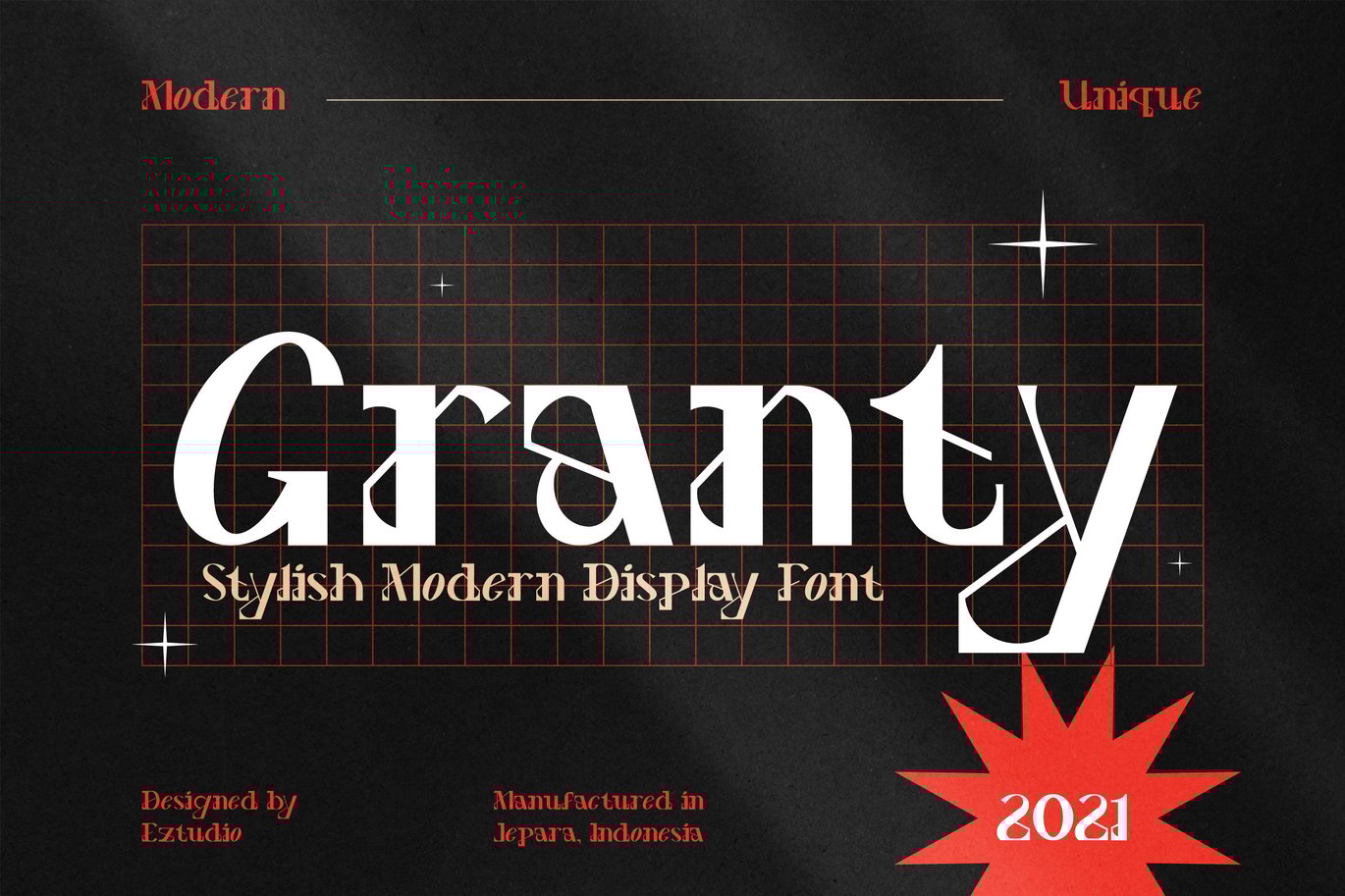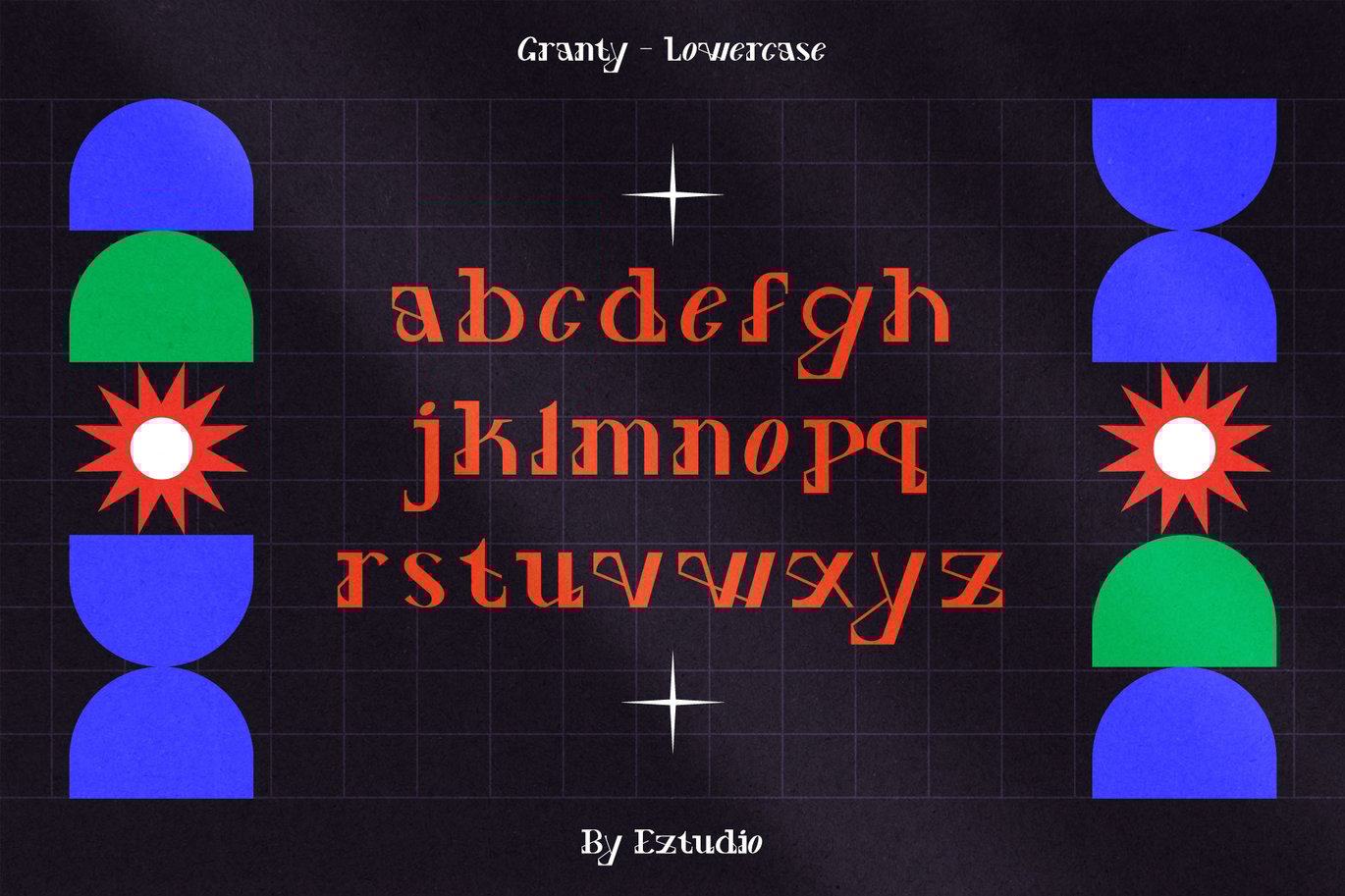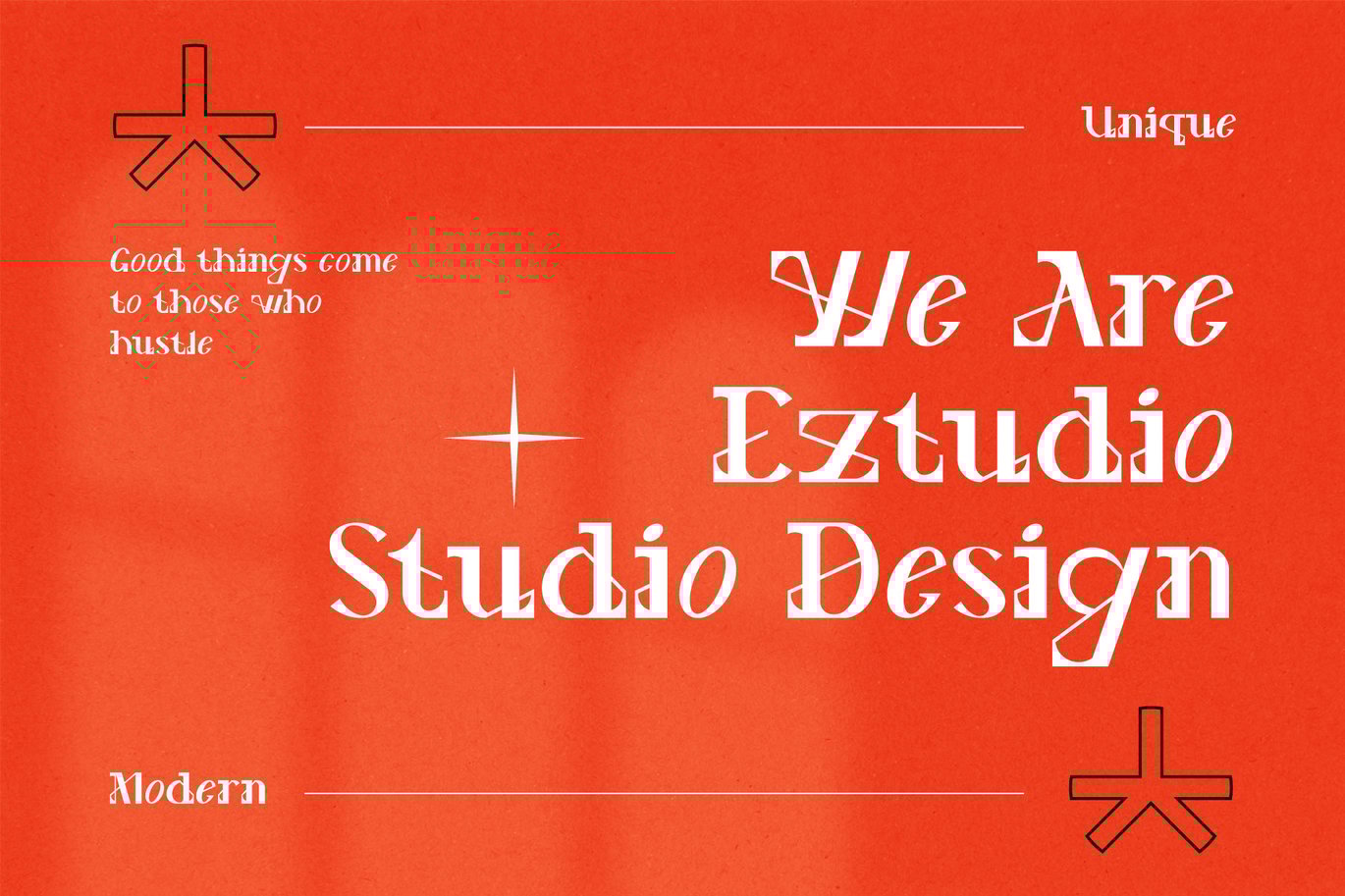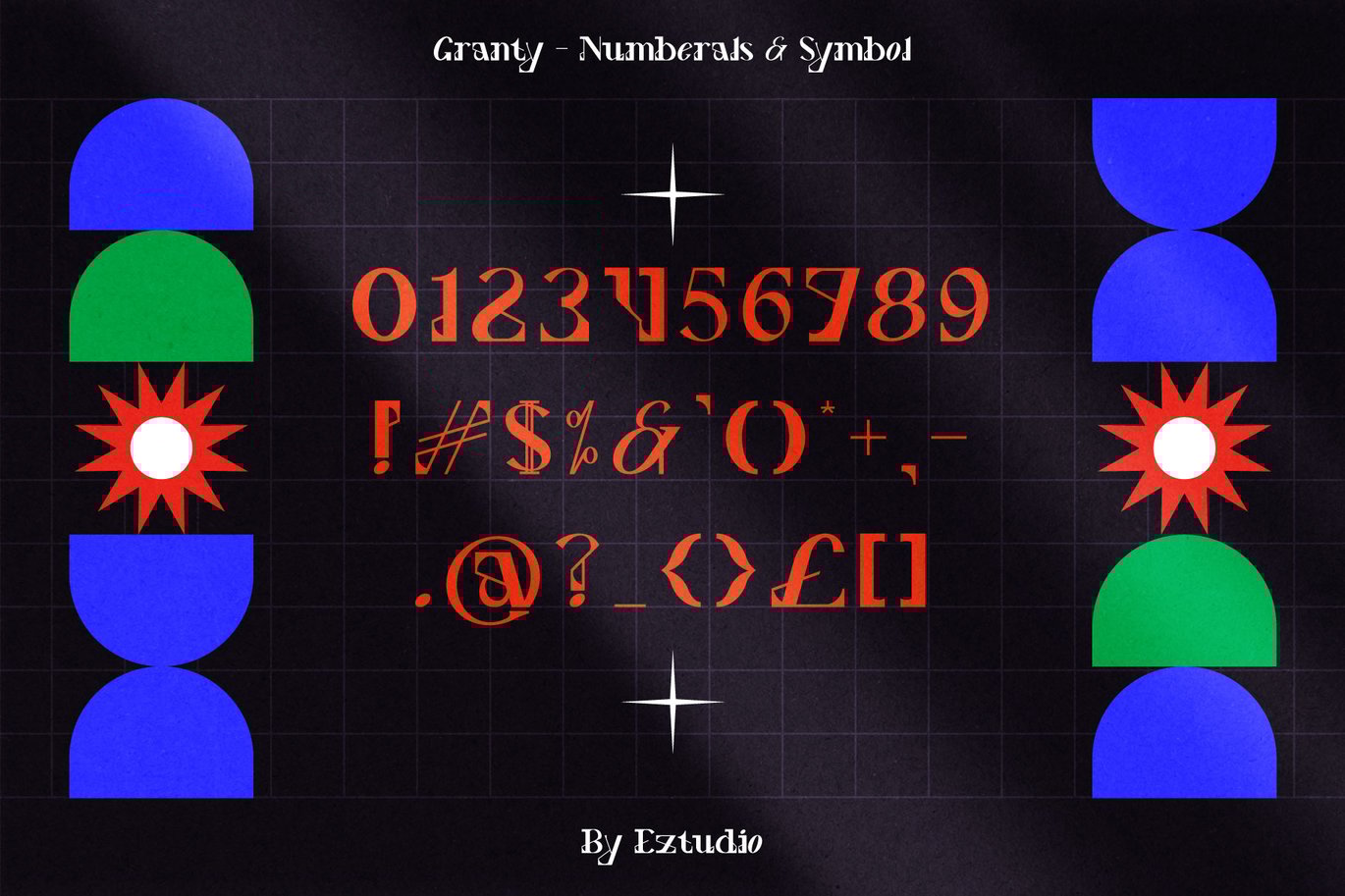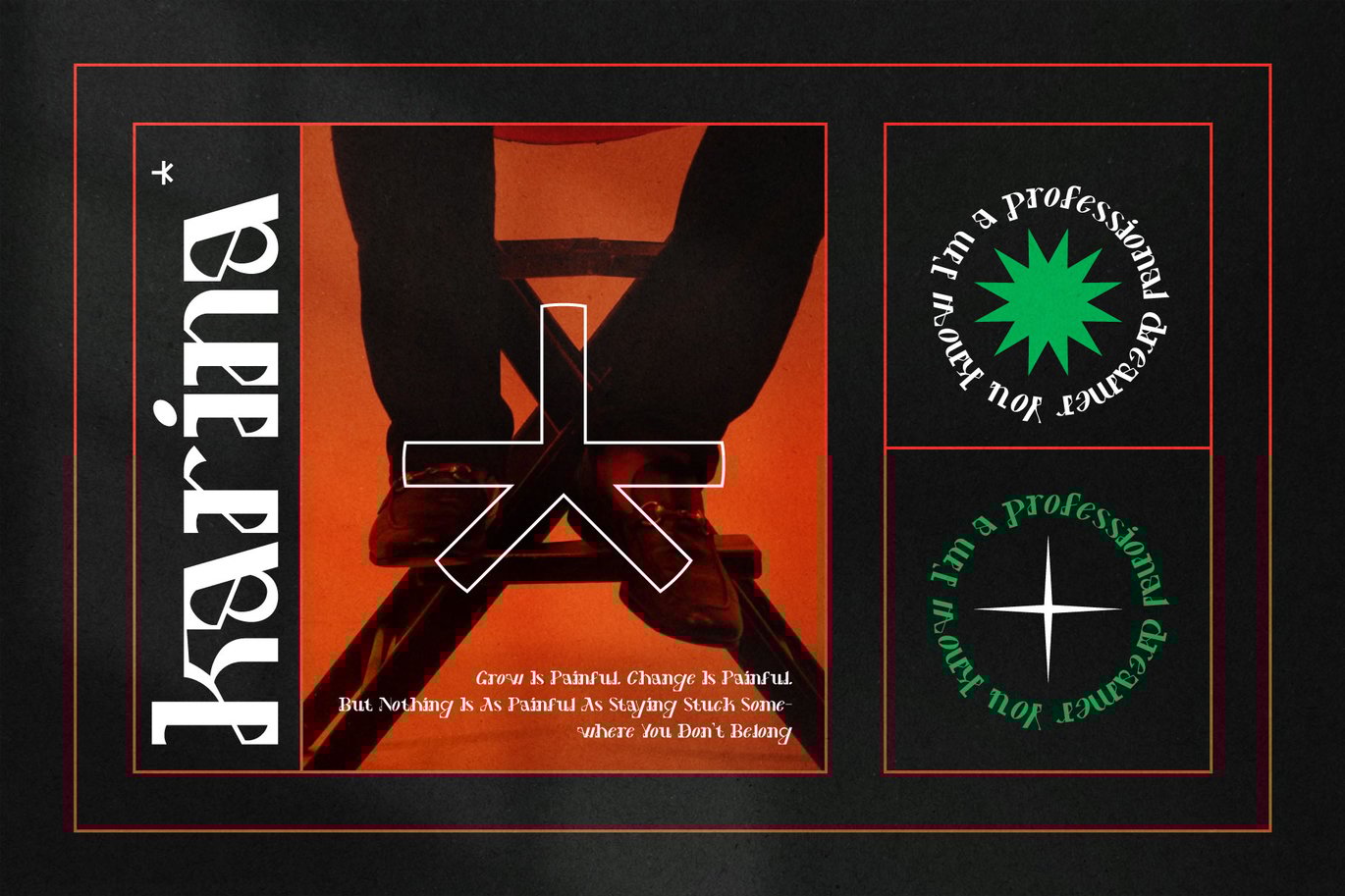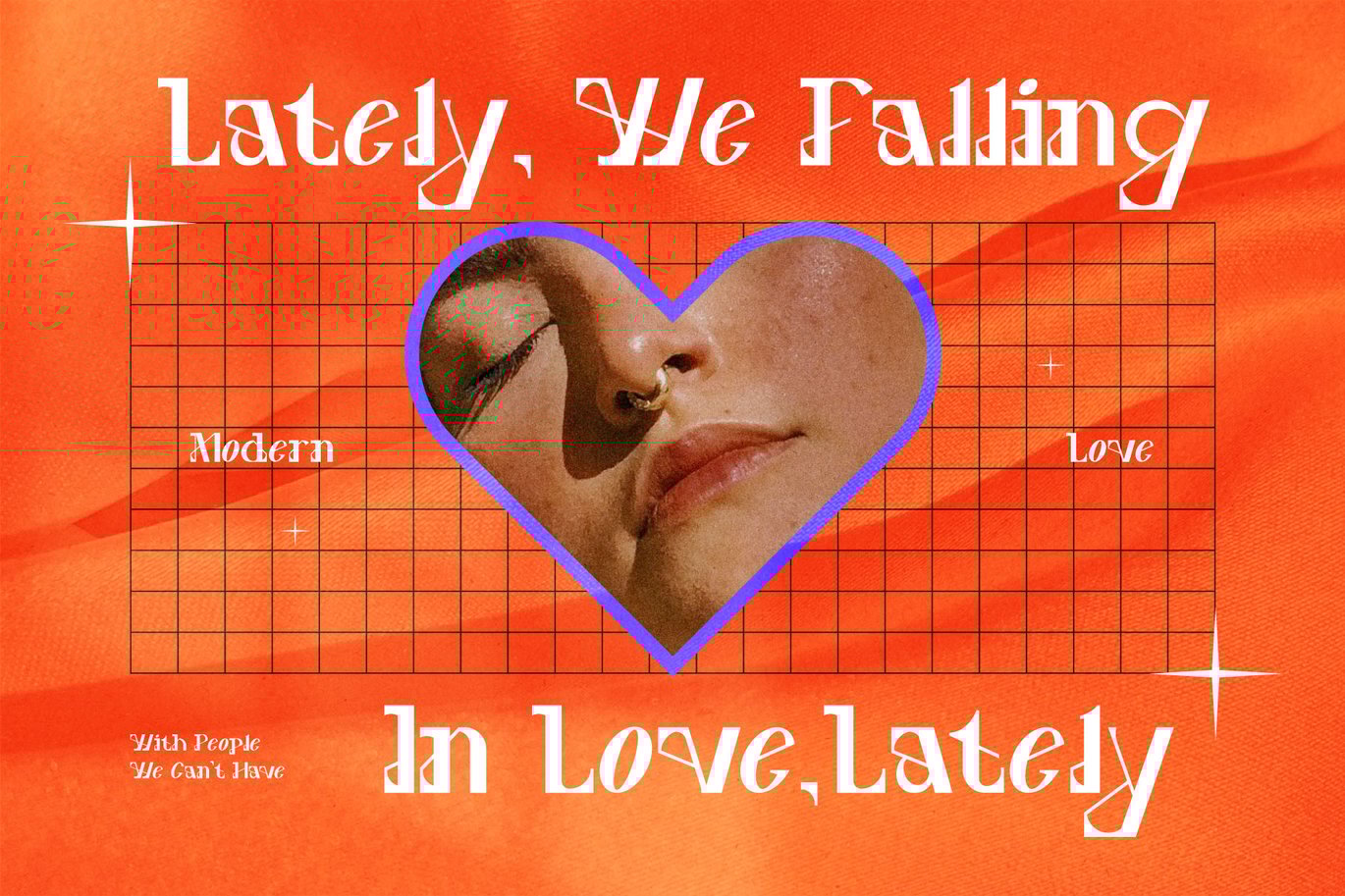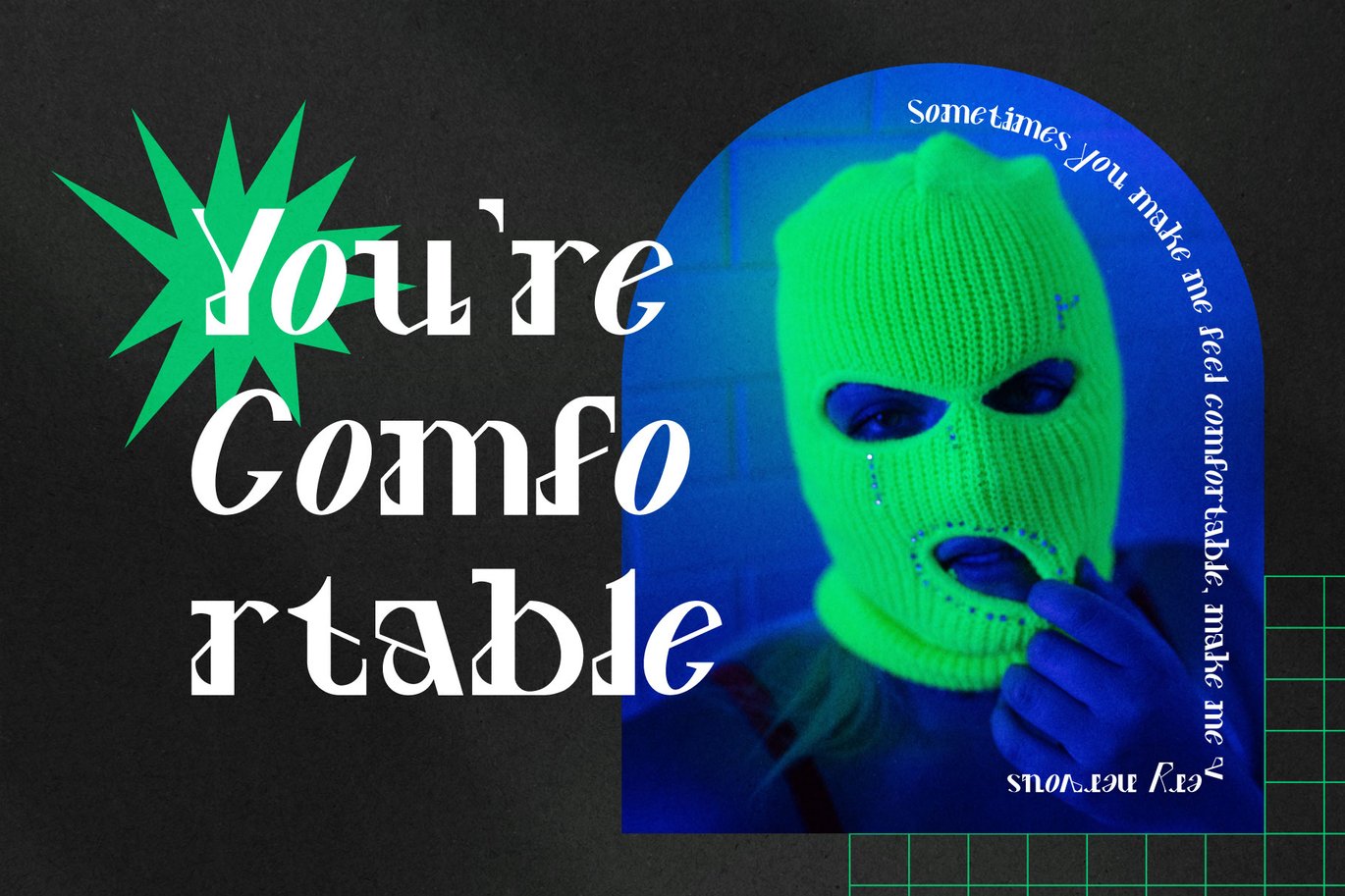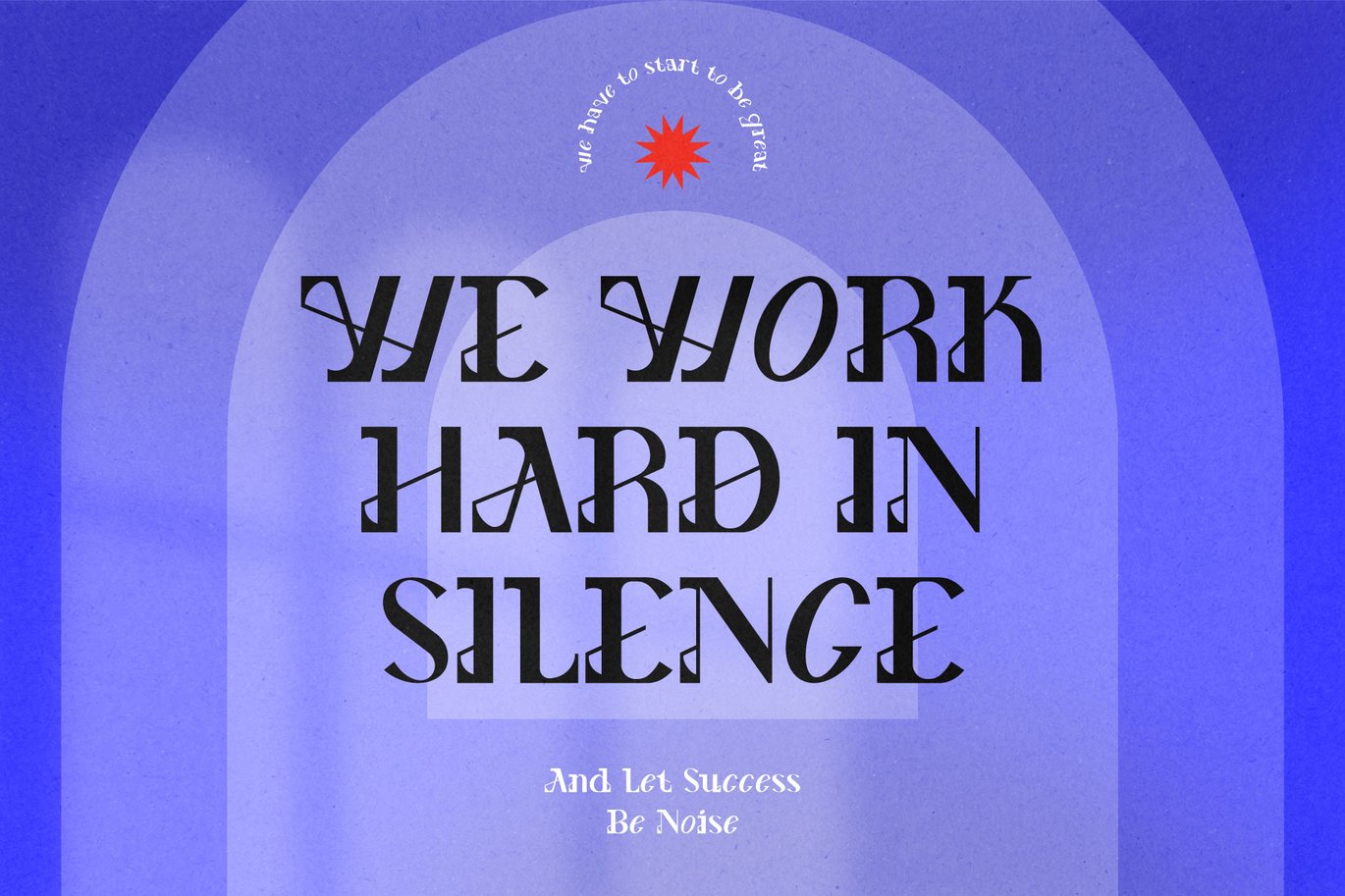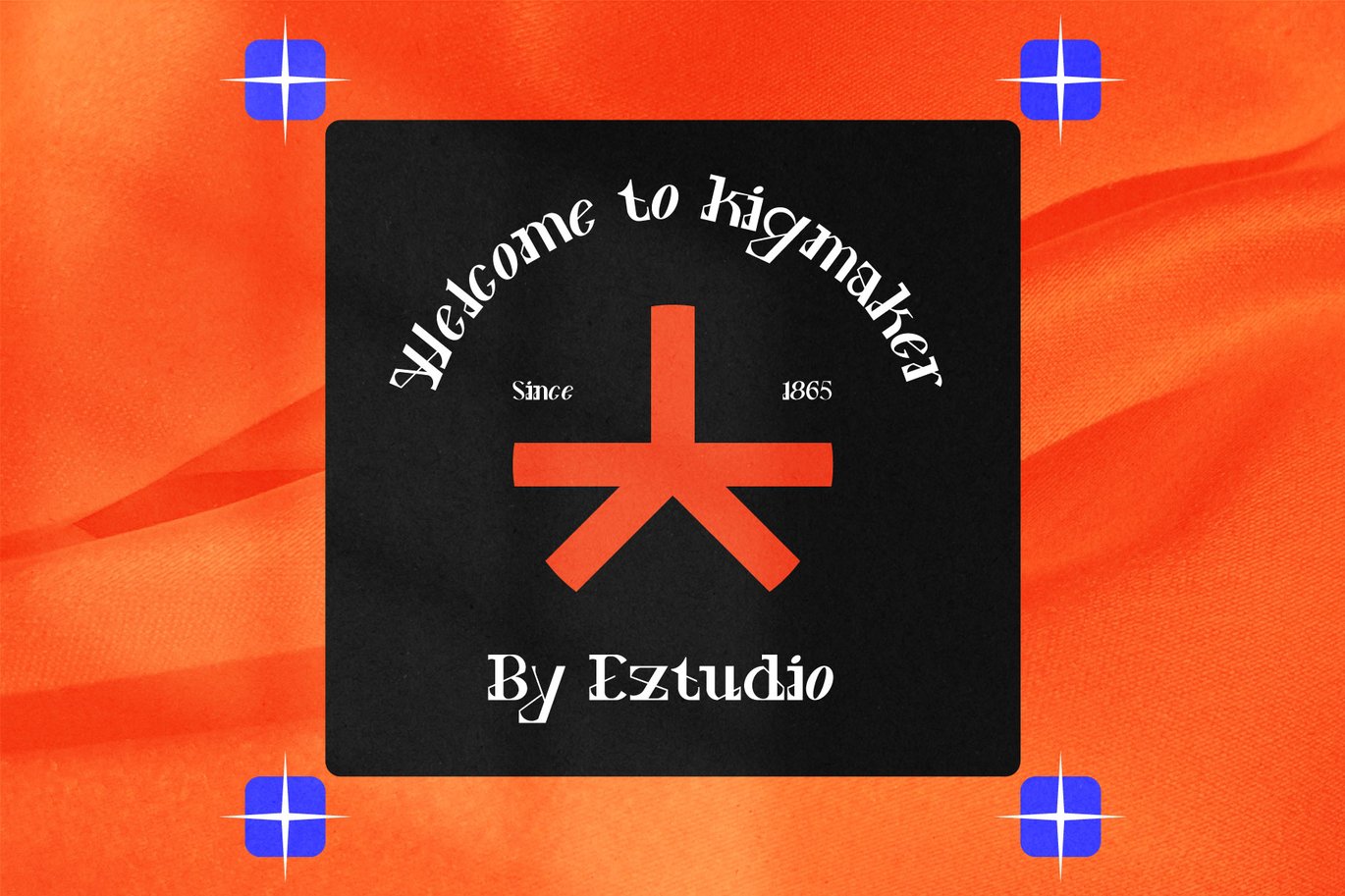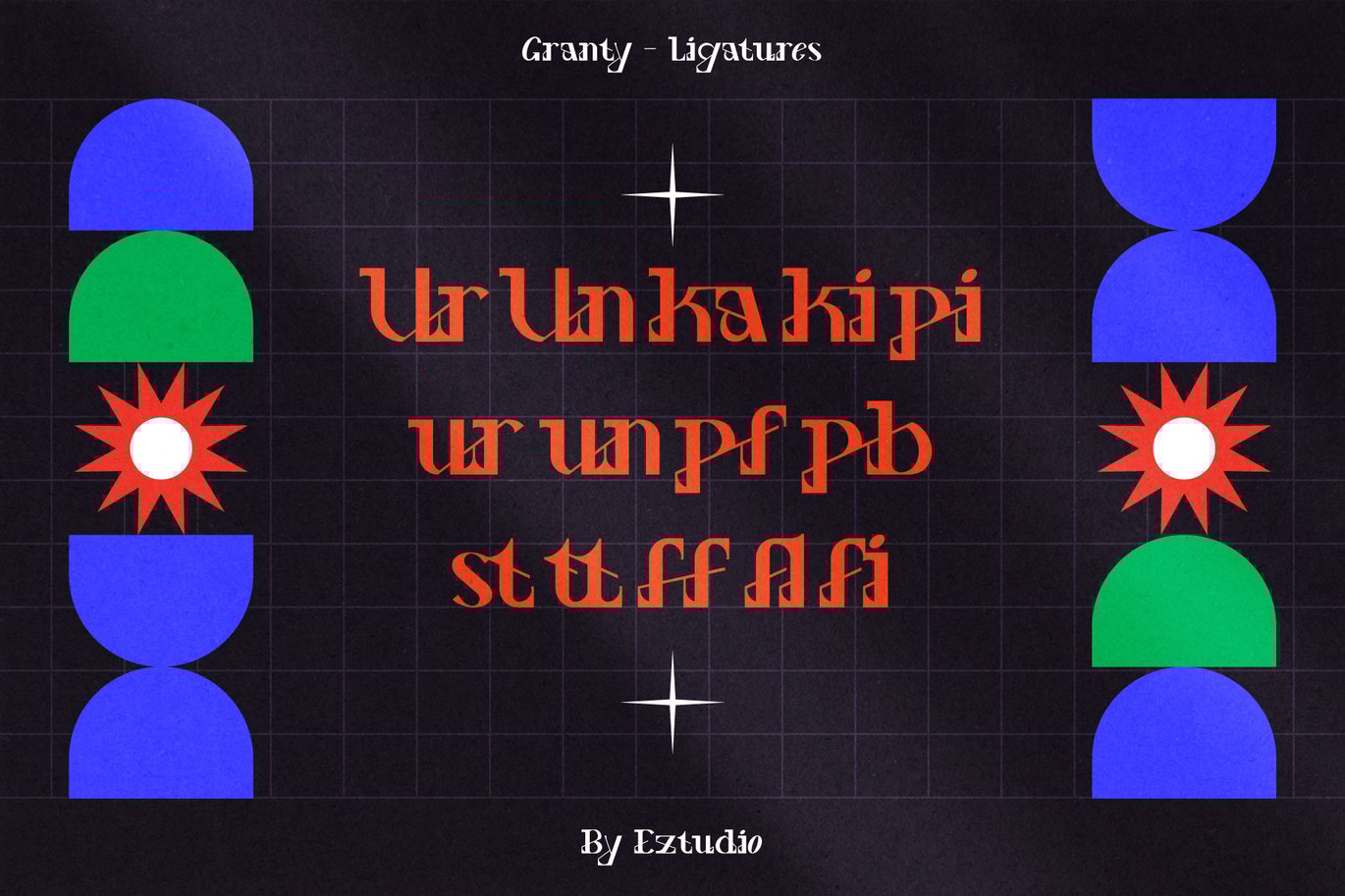
Decorative Font – Granty
Granty is Decorative font that includes uppercase letters, lowercase letters, numerals, ligatures & punctuation. this font can also be combined with other fonts like serif, script and handwritten. This font is suitable for graphic design needs such as: magazines, posters, branding, apparel, movie headlines etc..
The Granty font includes:
- Uppercase Letters
- Lowercase Letters
- Special Characters
- Multilingual Glyphs